A 1,264-page tome of type specimens from a trailblazing digital foundry
Founded in 1984 by Rudy VanderLans and Zuzana Licko, Emigre was one of the first independent publishers and type foundries to explore the new design possibilities offered by the Macintosh computer. Many people first encountered the foundry’s typefaces in the innovative pages of Emigre magazine (1984–2005). But Emigre also issued small booklets to promote the virtues of their fonts and reveal the processes used to design them. More than simple sales tools, these collectible type specimens were enjoyed as much for their inventive contents as for their leading-edge typeface designs.
Emigre Fonts: Type Specimens, 1986–2024, reproduces forty of these booklets in a single massive reference. With a preface from Letterform Archive associate curator Stephen Coles, a foreword from type design collaborator Jeffery Keedy, and a section of never-before-published behind-the-scenes content, this volume provides a near-definitive anthology of the foundry’s remarkable story in print.
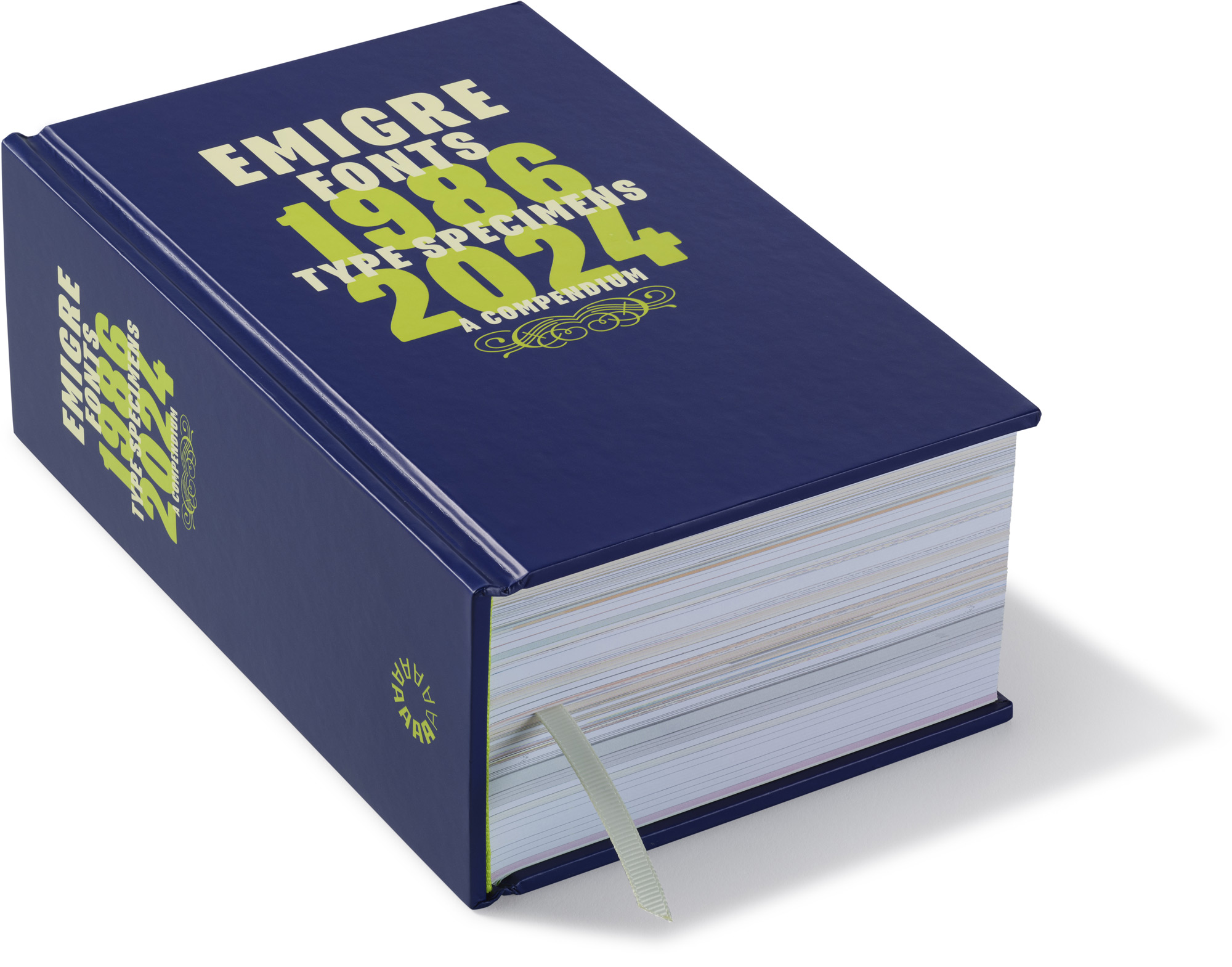
- Featured specimens Digital Fonts, Whirligig, Mrs Eaves, Hypnopædia, Space Probe, Platelet, Dalliance, Keedy Sans, Fairplex, Los Feliz, Cholla, Tribute, Poppi, Puzzler, Vista, Matrix II, Malaga, Little Book of Love Letters, Mrs Eaves XL, Historia, Mr Eaves, Base 900, Alda, Mr Eaves XL Narrow, The Collection, Program, Type Sampler, Cardea, Nine Literary Types, Inflection Point, Tangly, Notes on Filosofia, Crackly, Four Letter Words, Tally, Littlebit, Lo-Res Outlined, Lo-Res Monospaced, Grody to the Max
Emigre, Inc. is a digital type foundry based in Berkeley, California. Founded in 1984, coinciding with the birth of the Macintosh computer, the Emigre team, consisting of Rudy VanderLans and Zuzana Licko, with the addition of Tim Starback in 1993, were among the early adaptors to the new digital technology.
From 1984 until 2005 Emigre published the legendary Emigre magazine, a quarterly publication devoted to visual communication. Emigre created some of the very first digital layouts and typeface designs winning them both world-wide acclaim and much criticism. The exposure of these typefaces in Emigre magazine eventually lead to the creation of Emigre Fonts, one of the first independent type foundries utilizing personal computer technology for the design and distribution of fonts. They created the model for hundreds of small foundries who followed in their footsteps.
As a team, Emigre has been honored with numerous awards including the 1994 Chrysler Award for Innovation in Design and the 1998 Charles Nypels Award for excellence in the field of typography. In 1993 they were selected as a leading design innovator in the First Annual I.D. Forty. Emigre is also a recipient of the 1997 American Institute of Graphic Arts Gold Medal Award, its highest honor. In October 2010 the Emigre team was inducted as Honorary members of the Society of Typographic Arts, Chicago, and in 2013 Licko received the prestigious Annual Typography Award from the Society of Typographic Aficionados. Most recently Emigre received the 29th New York Type Directors Club Medal.
Complete runs of Emigre magazine are in the permanent collections of art museums around the world, including the Museum of Modern Art, New York; the Stedelijk Museum, Amsterdam; the Design Museum, London; the Museum for Gestaltung, Zurich; and the San Francisco Museum of Modern Art. In 2011, five digital typefaces from the Emigre Type Library were acquired by MoMA New York for their permanent design and architecture collection. Emigre magazine can also be found in the collections of several libraries, including those at the Royal Academy of Art, The Hague; the Art Center College of Design, Pasadena; the RIT Cary Graphic Arts Collections, Rochester; the University of Reading, Reading; and the Walker Art Center, Minneapolis.In 2016, Emigre donated its entire archive to San Francisco-based Letterform Archive. The gift included archival material in various media, such as every Emigre type catalog, development files for original Emigre typefaces, audio taped interviews and mechanicals for Emigre magazine, and various correspondence. The Online Archive hosts a complete run of the magazine, digitized in high fidelity for on-screen reading.
“A complete record of Licko and VanderLans’ achievements, solidifying their individual places in graphic and typographic design history.... Emigre Fonts is the most accessible reference that a practitioner, historian, and type fan will ever need. It is timeless and entertaining (I spent hours just casually flipping through and admiring the page designs for each font family).... It is beautifully printed and bound. Most important, the volume shows, demonstrates and, indeed, personalizes the varied characters of the styles, faces and decorative materials that established Emigre Fonts as the premier independent digital foundry in the (Western) world.”